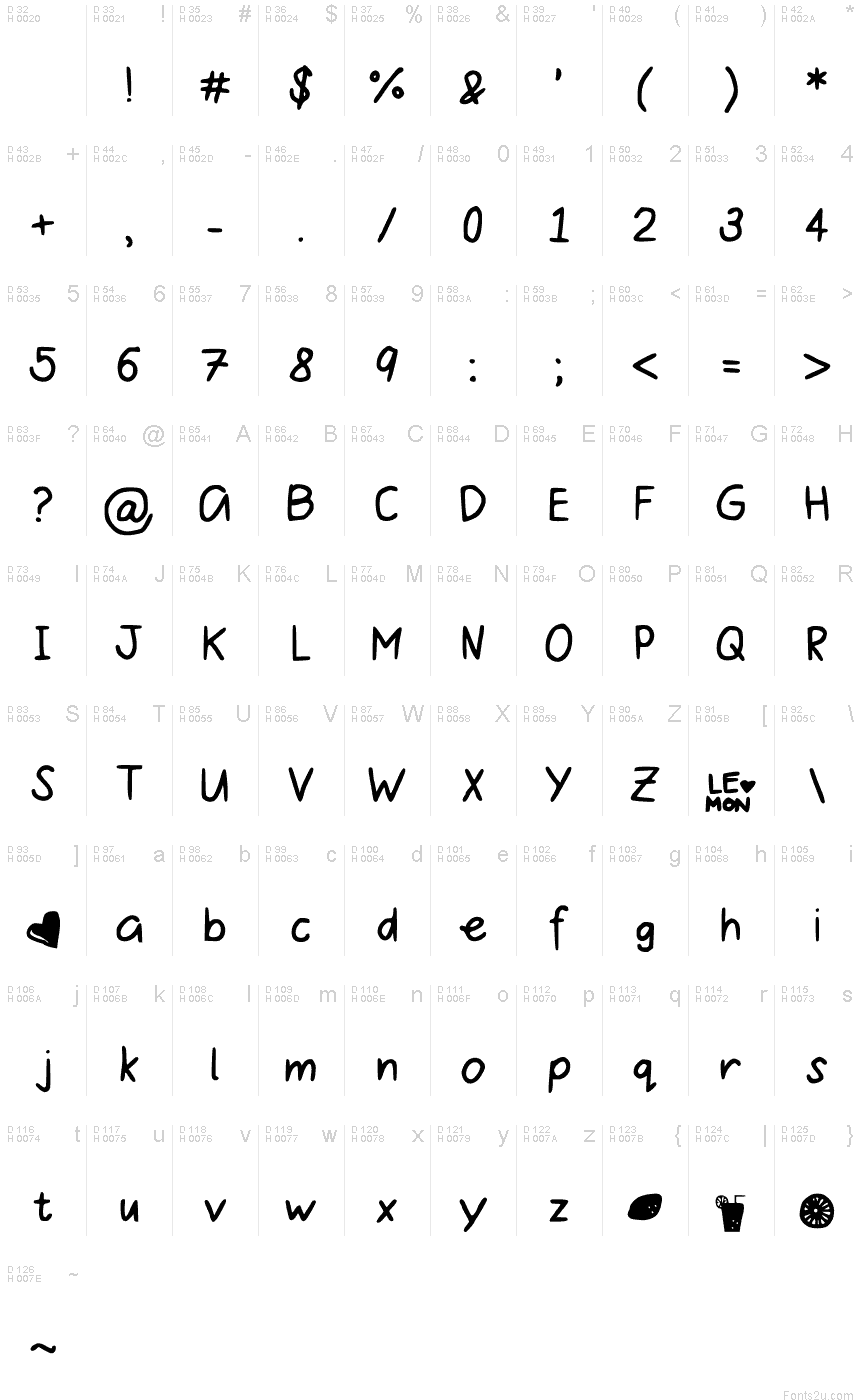
SugarLemonade
Ready to beat the heat? Sugar Lemonade is a new bubbly font with a super cute personality. It includes letters A-Z, basic punctuation marks and 4 adorable doodles.
Get ready for summer with Sugar Lemonade!